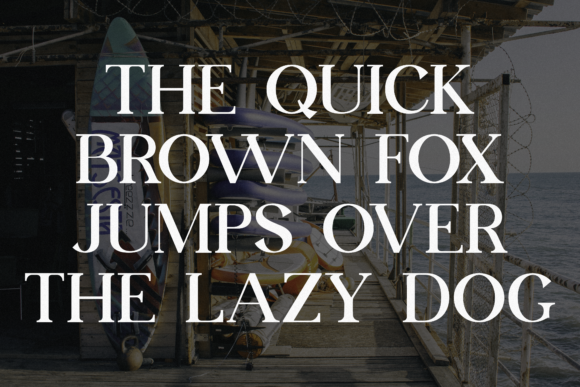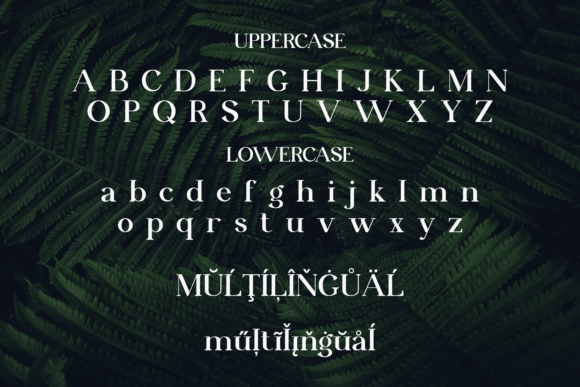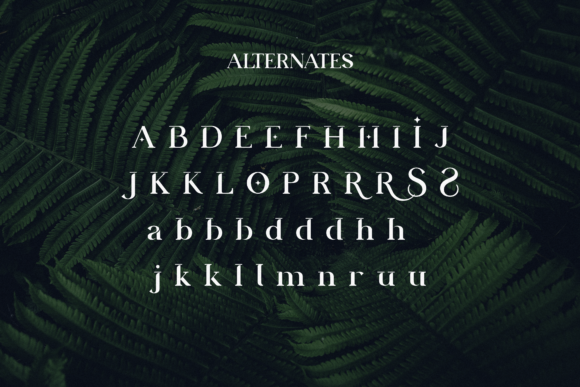
Introduction to Relishia Font
Have you ever stumbled upon a font that instantly sparks a creative idea? For designers, that moment is pure gold. It’s the moment when the perfect font transforms a project from bland to grand. For many, that moment arrived when they discovered the stunning Relishia Font.
This elegant typeface has captured the hearts of designers worldwide with its simplicity and beauty. Whether you’re working on a poster, wedding invitation, or website, Relishia Font is an excellent choice. Its versatility and high-quality design make it a valuable resource for any creative project. What’s more, it’s available for free download, making it an accessible design resource for designers of all levels.
One of the standout features of Relishia Font is its transparent background, allowing it to seamlessly blend with any design element. This characteristic makes it perfect for quotes, where the focus is on the message rather than the font itself. With its attractive design and numerous applications, it’s no wonder that Relishia Font has become a favorite among designers.
Key Features of Relishia Font
- High-quality design resource with a modern and elegant feel, perfect for creative projects.
- Features a transparent background, allowing for easy layering and customization in your design.
- Supports resolutions up to 300 DPI, ensuring crisp and clear text output in print and digital formats.
- Designed to work well in both serif and sans-serif contexts, making it a versatile choice for a variety of design projects.
- Comes in a single weight, making it easy to use in a range of design applications without worrying about font pairing.
Honest Review: Relishia Font
I recently had the chance to work with the Relishia Font, and I must say it’s been a delightful experience. As a designer, I’m always on the lookout for high-quality design resources to enhance my creative projects.
Here are some things that work well with the Relishia Font:
- ✨ The font is incredibly versatile and can be used for a wide range of creative projects, from logos to digital signage.
- ✨ The transparent background makes it easy to use as a overlay or texture in your designs.
- ⚠️ The font can be quite dense, which may not be suitable for large blocks of text.
Overall, I’m impressed with the Relishia Font. Its high quality and versatility make it a great addition to any designer’s toolkit. While it may have some limitations, it’s definitely worth considering for your next creative project.
Relishia Font Overview
The Relishia Font is a high-quality design resource perfect for creative projects. This versatile font offers a transparent background, making it ideal for use in various graphic design applications.
Common Use Cases for the Relishia Font
- Graphic design projects, such as logos, brochures, and business cards.
- Web design projects, such as website headers and footers.
- Print design projects, such as posters, flyers, and menus